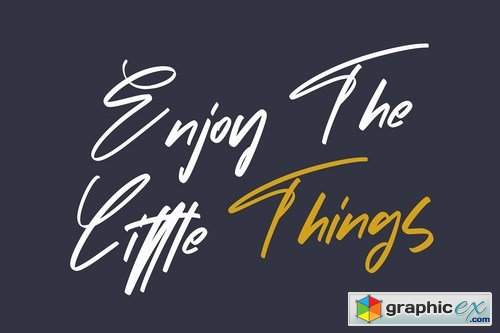
Incognito Marker Font
Incognito | Marker Font with a calligraphy style, So beautiful on invitation like greeting cards, branding materials, business cards, quotes, posters, and more!